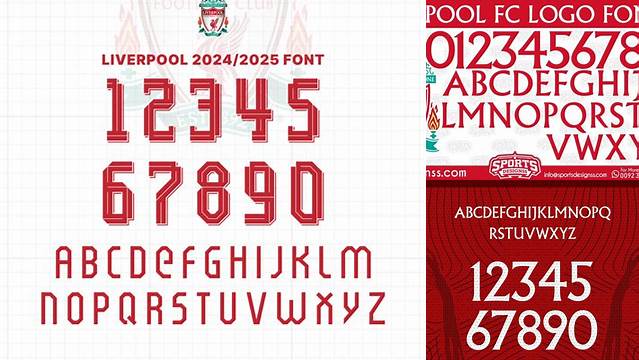
FC Liverpool 2026 Font: Free Download Guide
Understanding the FC Liverpool 2026 Font
Alright guys, let's dive into the exciting world of the FC Liverpool 2026 font! If you're a die-hard fan or just appreciate sleek typography, you've probably seen this distinctive font gracing the kits and merchandise of our beloved Reds. The FC Liverpool 2026 font isn't just any typeface; it's a carefully crafted design that embodies the spirit and legacy of one of the world's most iconic football clubs. When we talk about the '2026' aspect, it often refers to the specific style or iteration of the font that was prevalent or designed for that particular season or upcoming period. These fonts are usually commissioned by the club and its kit manufacturers, ensuring they align with the club's branding and aesthetic. They often feature unique characteristics that set them apart from standard fonts, making them instantly recognizable. Think sharp edges, a sporty feel, and a certain gravitas that represents the club's history and ambition. The design process for such a font is rigorous, involving graphic designers, brand strategists, and even input from the club itself to ensure it perfectly captures the essence of Liverpool FC. This isn't just about making letters look good; it's about creating a visual identity that resonates with millions of fans worldwide. The goal is to produce a font that looks great on a player's jersey, is legible on merchandise, and feels authentically 'Liverpool'. We'll explore the key features that make this font stand out, such as its readability, its modern yet classic appeal, and how it complements the overall kit design. Whether you're looking to create fan art, customize your own gear, or simply want to learn more about sports typography, understanding the FC Liverpool 2026 font is your first step. We’re going to break down what makes it special, where you might find variations, and importantly, how you can potentially get your hands on it for your own projects. It's a piece of the Liverpool identity, and having access to it can be pretty cool.
Why You Need the FC Liverpool 2026 Font
So, why all the fuss about a football font, you ask? Well, guys, it's more than just letters and numbers! The FC Liverpool 2026 font is a symbol of passion, loyalty, and the shared identity of the LFC community. For many fans, owning or using elements that reflect the club's official branding, like this specific font, is a way to feel closer to the team, whether you're watching from the stands, cheering from your living room, or creating your own fan-made content. Imagine designing a custom t-shirt, a personalized phone case, or even a banner for match day – using the authentic FC Liverpool 2026 font instantly elevates your creation, giving it that genuine club feel. It shows you've paid attention to the details, and that’s something many fans appreciate. Beyond personal use, this font is crucial for anyone involved in fan media, unofficial merchandise creation, or graphic design projects related to Liverpool FC. Having access to a high-quality version of the font ensures your work looks professional and respects the club's visual identity. It’s about capturing that electric atmosphere of Anfield, the roar of the crowd, and the pride of wearing the Liverbird. When you see the numbers and names on the back of the players' jerseys, that specific typeface is part of the magic. It’s been designed to be both stylish and functional, ensuring names and numbers are clear and impactful. For aspiring designers or content creators targeting the LFC fanbase, incorporating this font is a smart move to gain recognition and connect with your audience on a deeper level. It's a tangible piece of the club's aesthetic that you can integrate into your own creations, making them truly special. So, whether you're a casual admirer or a dedicated supporter looking to add a professional touch to your fan projects, the FC Liverpool 2026 font is a must-have asset. It's your chance to bring a bit of Anfield into your digital or physical creations, celebrating the team in a unique and authentic way. Get ready to make your LFC-themed projects stand out!
Exploring the Design Elements of the FC Liverpool 2026 Font
Let's get down to the nitty-gritty, guys, and really unpack the design elements that make the FC Liverpool 2026 font so distinctive. When you look closely at the official kits, you'll notice that these fonts aren't just generic; they have specific characteristics tailored for impact and identity. Typically, football fonts are designed with legibility in mind, especially for names and numbers that need to be seen clearly from a distance, whether on the pitch or on screen. The FC Liverpool 2026 font is no exception. You’ll often find a clean, sans-serif structure, which provides excellent readability. However, what sets it apart are the subtle, unique touches. These might include slightly sharper angles on certain letters, a distinctive curve in the 'S' or 'R', or a particular weight and spacing that feels modern yet robust. Think about the 'L' in Liverpool or the 'R' in Reds – they might have a subtle flair that's instantly recognizable to fans. The designers often work with the club's crest and existing brand guidelines to ensure the font complements the overall aesthetic. This means the font's character should echo the club's values – strength, dynamism, and a touch of tradition. We might see variations in the font for different applications – perhaps a bolder version for the main jersey numbers and a slightly lighter or condensed version for names or smaller print. The goal is always to maintain consistency while adapting to various design needs. The '2026' designation often points to a specific era or a stylistic update, potentially incorporating feedback from previous iterations or anticipating future branding directions. It's a fusion of heritage and innovation. For instance, the numerals might have a squared-off, athletic feel, while the lettering could be more streamlined. The negative space within the characters is also carefully considered to prevent them from blurring together, especially at speed or on smaller screens. Understanding these design nuances is key to appreciating why the FC Liverpool 2026 font is more than just a typeface; it’s a carefully engineered piece of visual communication that represents the club's identity on the world stage. It’s about creating a visual language that fans connect with emotionally and instinctively. We'll explore these details further as we look at potential sources and uses.
FC Liverpool 2026 Font vs. Previous Iterations
It’s always interesting, guys, to see how things evolve, and that applies to club fonts too! The FC Liverpool 2026 font, while potentially having its own distinct identity, likely builds upon or differs from previous iterations of Liverpool FC's official typography. Each season or branding update often brings subtle or sometimes significant changes to the font used on kits and official materials. These changes aren't arbitrary; they are usually driven by several factors. Kit manufacturers want to keep the visual identity fresh and modern, aligning with the latest design trends and technological advancements in printing and fabric. Clubs also use these updates to subtly reinforce their brand evolution or to mark significant periods. For example, a font might become slightly bolder, more condensed, or incorporate a new stylistic element like a unique ligature or a different serif/sans-serif treatment. Comparing the 2026 font to, say, the fonts used during the Suarez era, or the early 2000s, would likely reveal distinct differences in sharpness, weight, and overall feel. Older fonts might have had a more classic, perhaps slightly more rounded appearance, reflecting the design sensibilities of their time. Newer fonts, like the 2026 iteration, are often sleeker, sharper, and engineered for maximum impact in high-definition broadcasts and digital media. The specific '2026' marker might indicate a particular design philosophy adopted for that season – perhaps a focus on digital compatibility, enhanced visual impact on screen, or a nod to a specific anniversary or milestone. It’s also common for the font to be adapted slightly for different uses; for instance, the number font might differ slightly from the name font, or there might be a special variant for cup competitions versus league games. Understanding these historical shifts and the specific characteristics of the 2026 font helps fans appreciate the nuances of club branding and the constant effort to refine visual identity. It's a fascinating aspect of sports design that connects the club's past, present, and future. We’ll touch upon how to identify these subtle differences when looking for downloads.
Font Pairing: Complementing the FC Liverpool 2026 Font
Choosing the right font pairing is crucial for making your designs pop, guys, especially when working with a distinctive typeface like the FC Liverpool 2026 font. You don't want to just throw the font into a design; you need to think about how it interacts with other elements. The goal is usually to create a balanced and visually appealing composition. Since the FC Liverpool 2026 font is likely designed to be bold, sporty, and impactful, especially for names and numbers, it often pairs well with simpler, more neutral fonts for other text elements, like body copy, taglines, or additional information. Think about pairing it with a clean, highly readable sans-serif font. Options like Open Sans, Lato, or Montserrat work beautifully because they don't compete with the main club font. They provide clarity and ensure that any supporting text is easy to read without distracting from the main visual focus. If you're going for a more classic or elegant look, a simple serif font could also work, but choose one that isn't too ornate. A font like Merriweather or Georgia, used sparingly, might add a touch of sophistication. When designing merchandise, consider the hierarchy. The FC Liverpool 2026 font might be best used for the prominent elements – the team name, player names, numbers. For smaller text, like sponsorship logos (if you're creating mockups), website URLs, or descriptive text, use a secondary font that offers contrast but maintains harmony. A good rule of thumb is to pair a display font (like our LFC font) with a text font. The display font grabs attention, while the text font provides information clearly. Also, consider the context of your design. Are you creating something for a digital platform, print, or merchandise? This can influence your font choices. For web use, ensure your chosen pairings are web-safe or properly optimized. Ultimately, the best font pairings create a cohesive design that highlights the FC Liverpool 2026 font while ensuring overall readability and aesthetic appeal. Experiment with different combinations until you find the perfect match that screams 'LFC pride'!